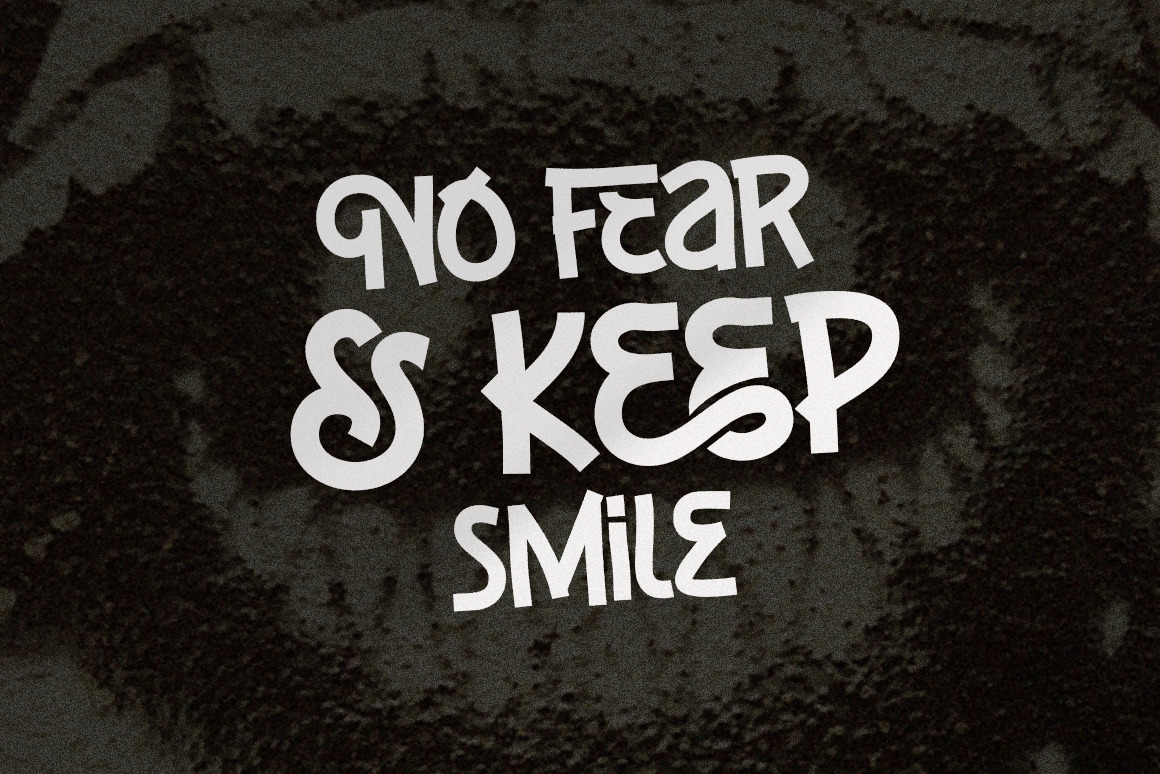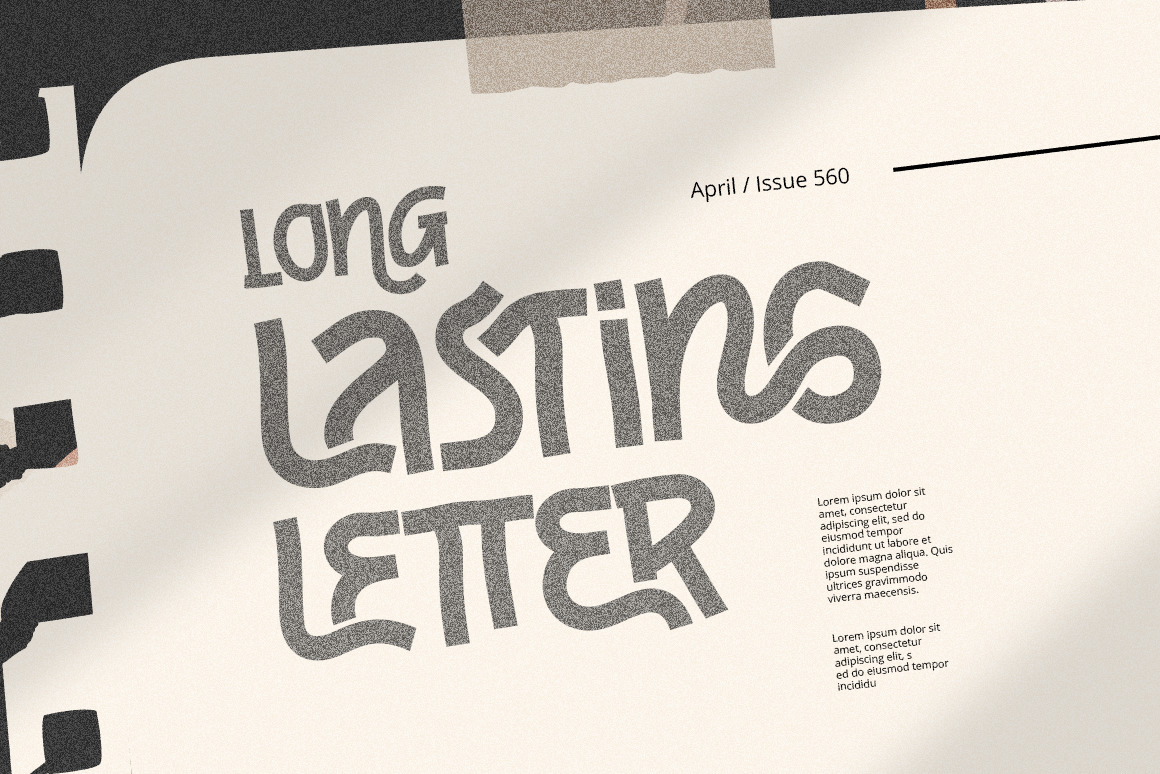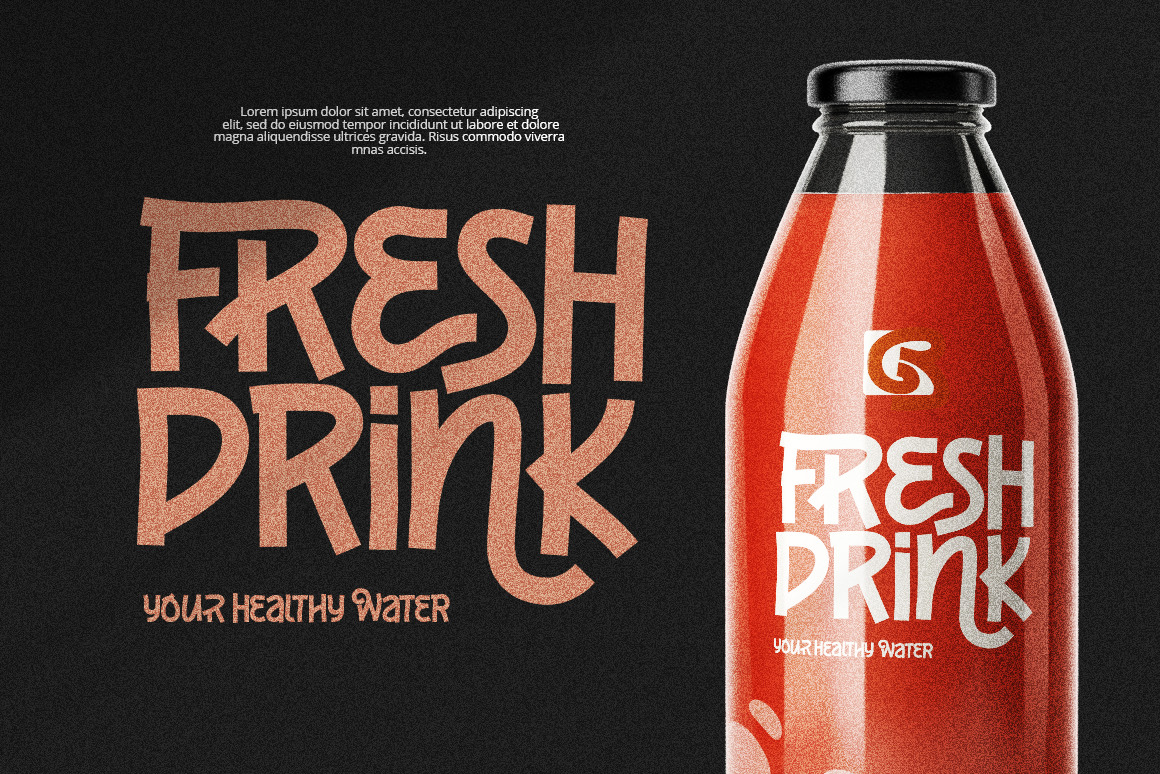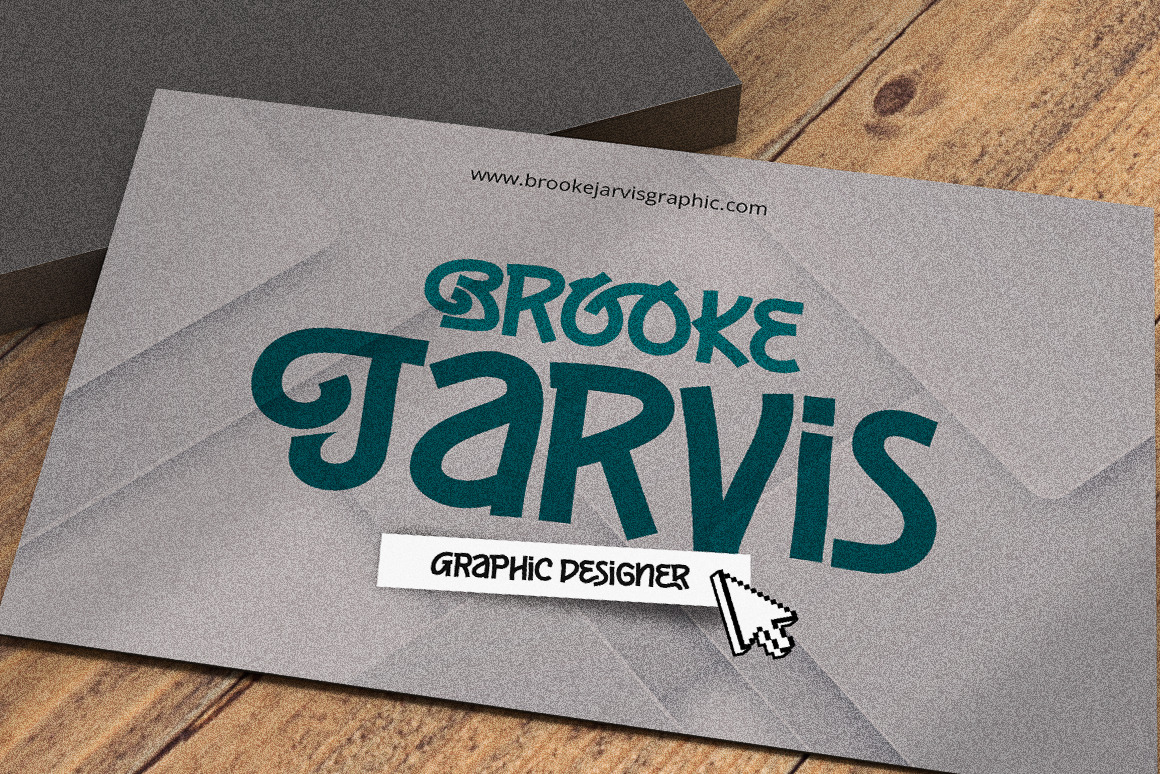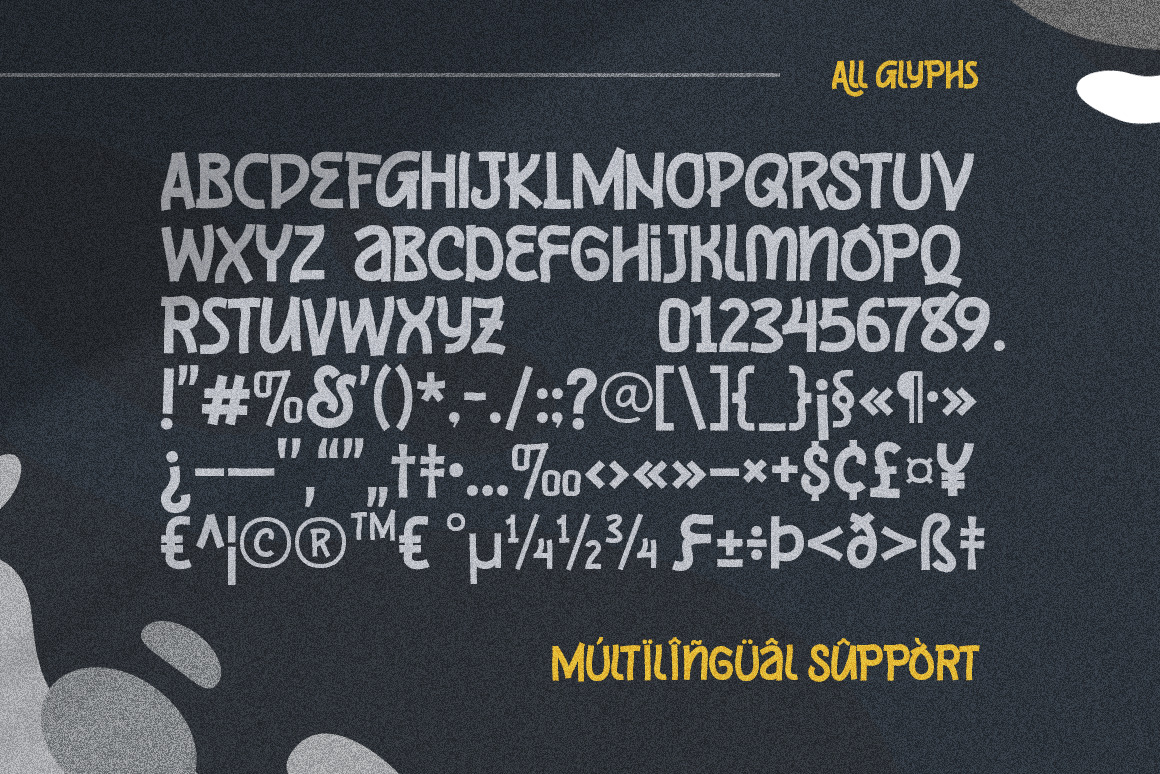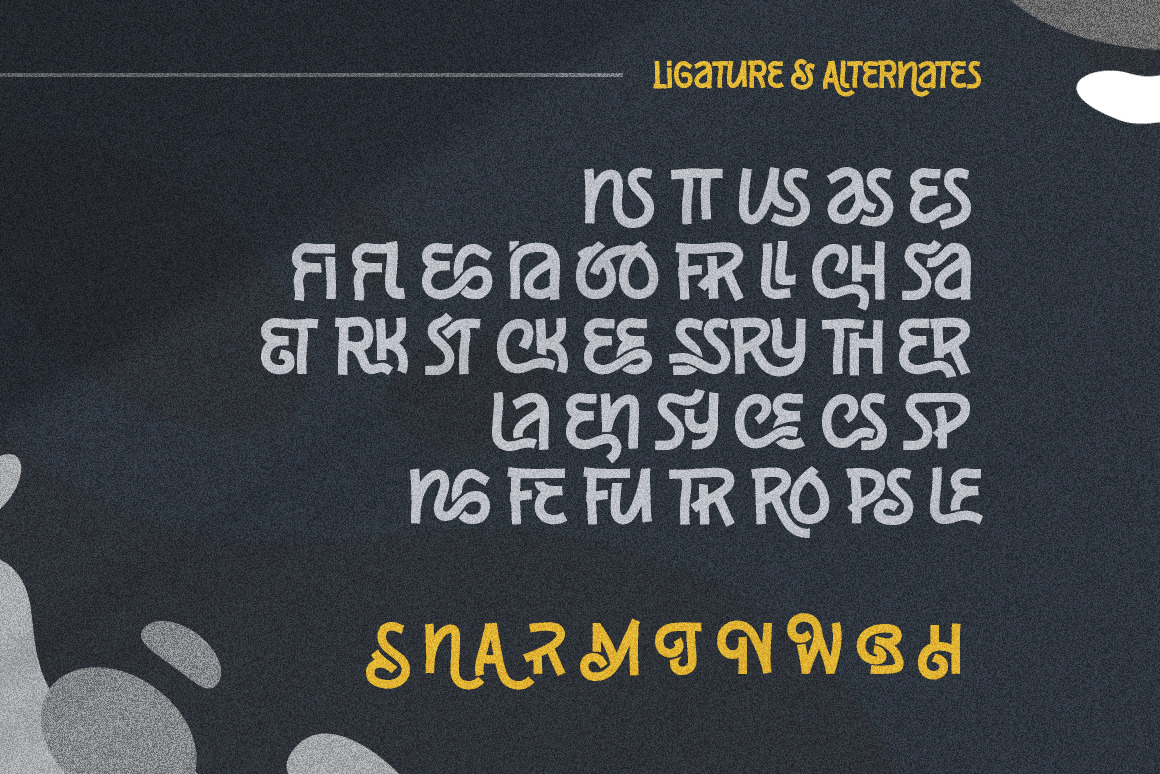
Fuchas handwriting Font
Fuchas is monoline decorative and bold handwritten font. this typeface combines with sharp edge and curve style that makes Fuchas is more tough and unique. This font equipped with extra ligatures and alternates. Fuchas is perfect for branding, text header, logotype, logo tagline, quotes, editorial design and other graphic design project._
Fuchas Features:
- Single weight
- Punctuation & Characters
- Ligatures
- Glyphs included superscript & Symbol
- Currencies
- Multilinguals